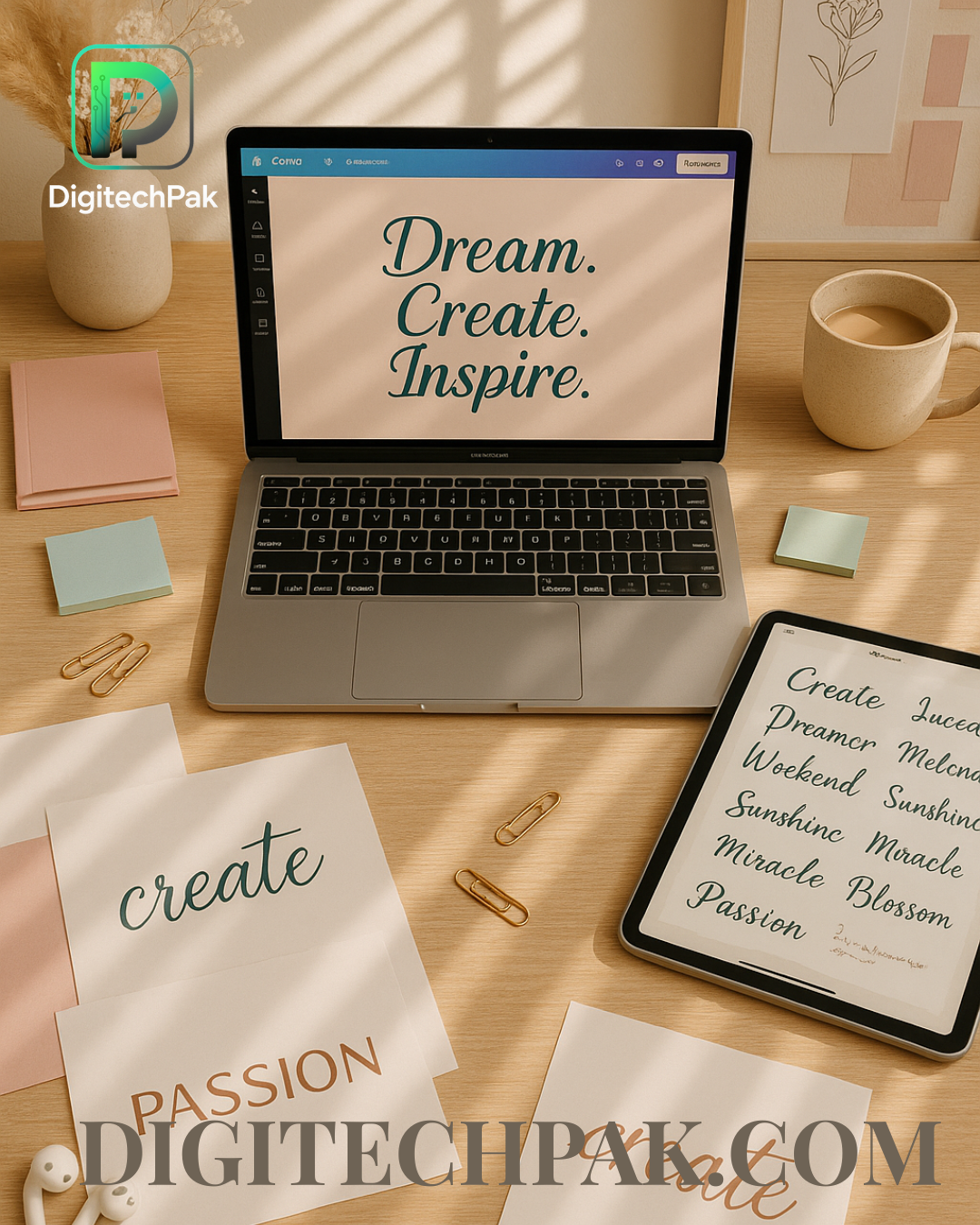
Give your designs an authentic, personal touch with our Handwritten Font Bundle – easy to use, beautifully crafted, and ready to elevate your content!
Looking for fonts that feel real, emotional, and personal? Whether you’re a content creator, graphic designer, or social media marketer, The Handwritten Font Bundle delivers unmatched versatility, elegance, and charm to every project.
✅ Perfect for YouTube Thumbnails, Branding, Logos & Quotes